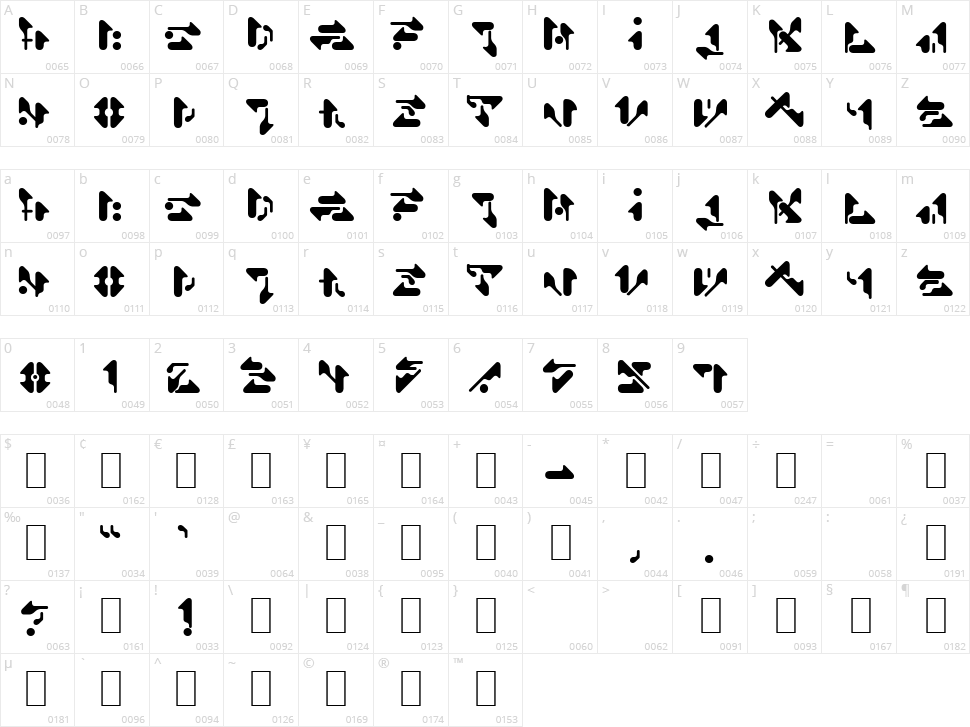
Shamen Remix by Matt Perkins.
A Tenchy looking moster thing.
The idea for this thing was spawned from a logo on Shamen's Different Drum Remix CD.
The logo was designed by Me Company.
A Typography in Decay production in 1997.